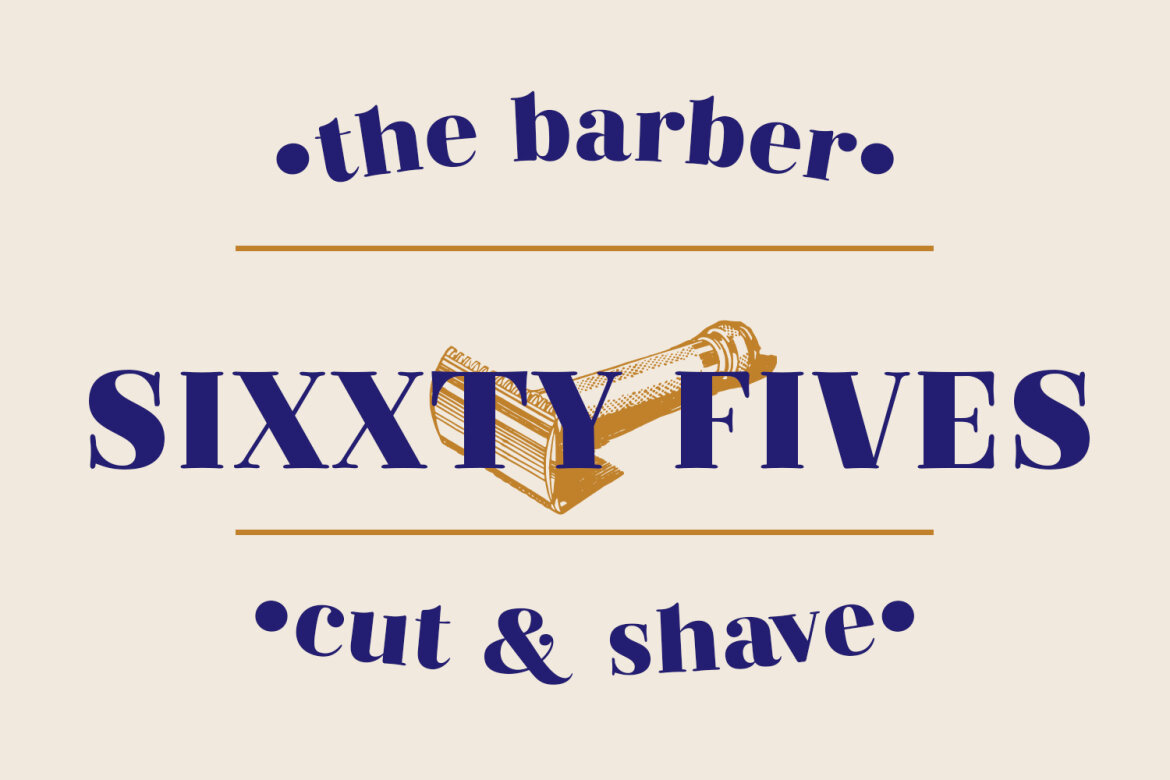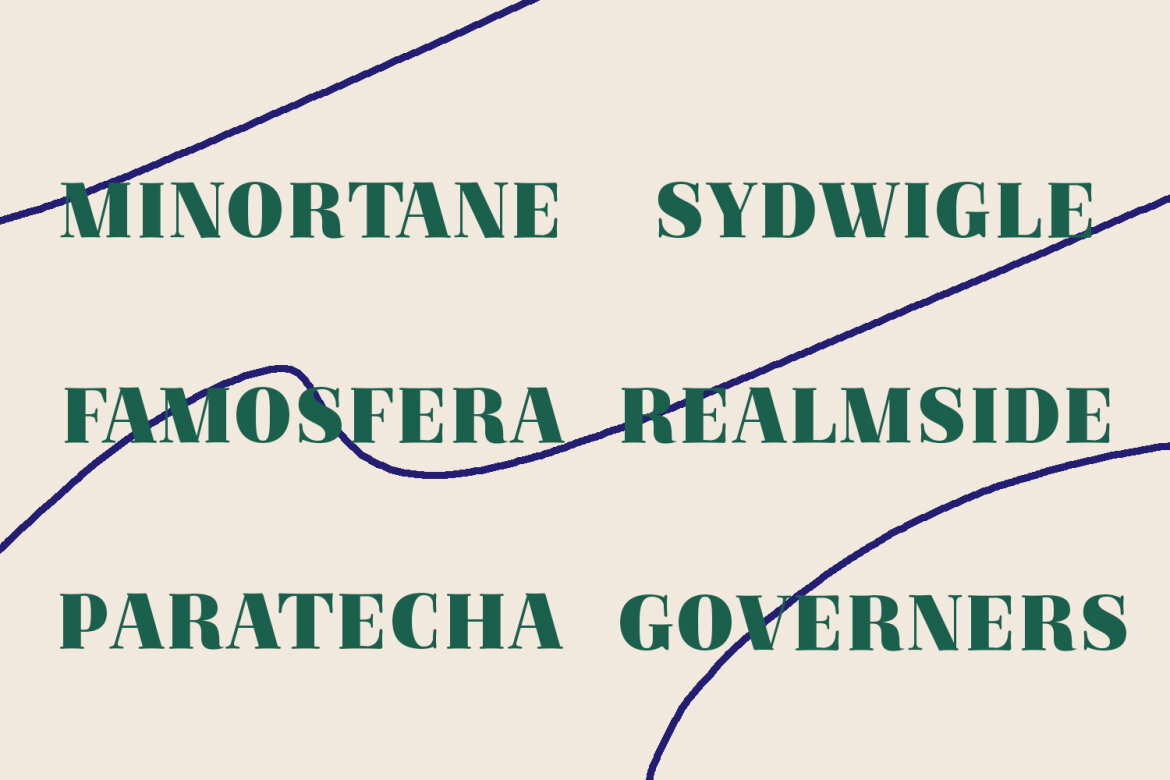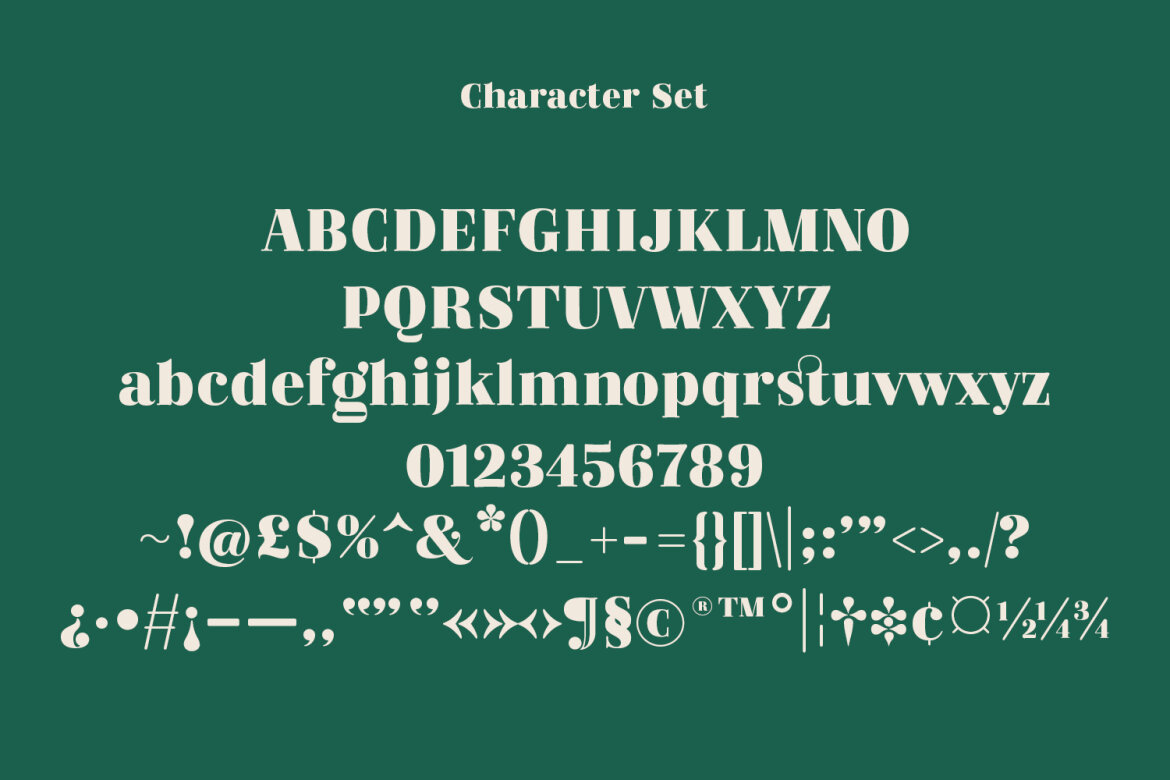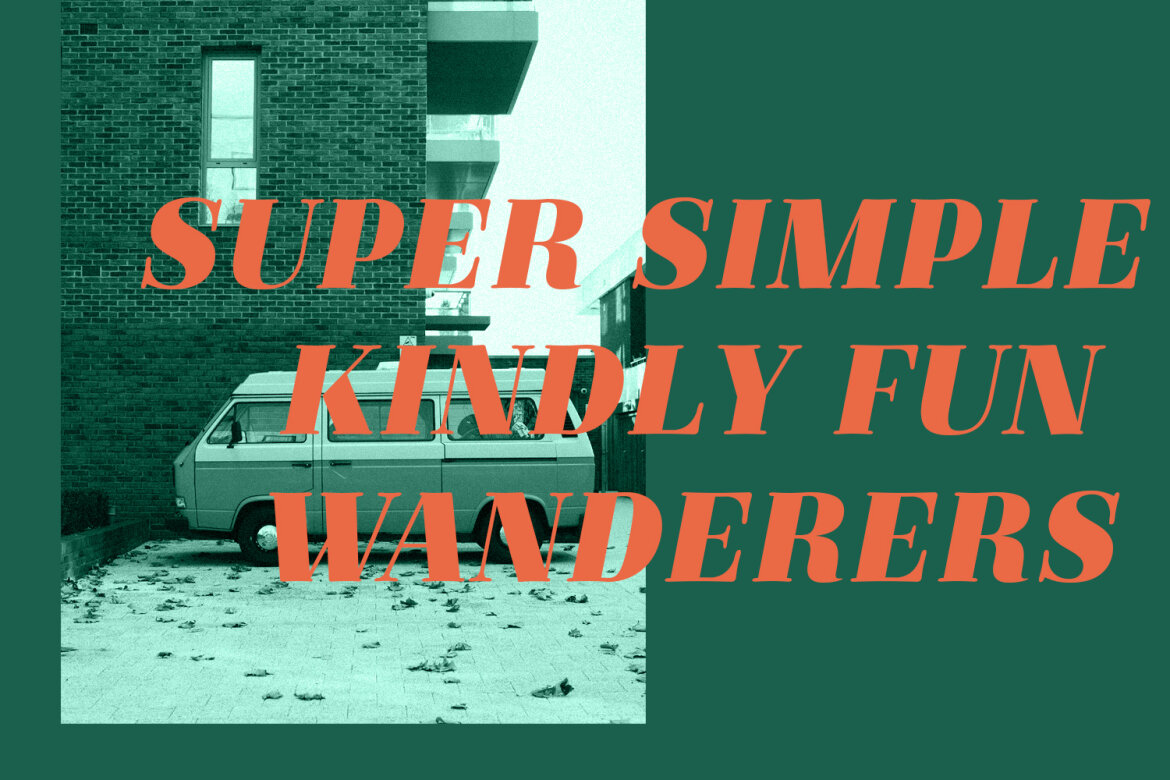
Kalgista Serif FREE Font
Kalgista
Kalgista is a modern condensed concave serif display font. Bold stroke, fun character with a bit of ligatures and alternates. To give you an extra creative work. Kalgista font support multilingual more than 100+ language. This font is good for logo design, Social media, Movie Titles, Books Titles, a short text even a long text letter and good for your secondary text font with script or serif. Make a stunning work with Kalgista font.